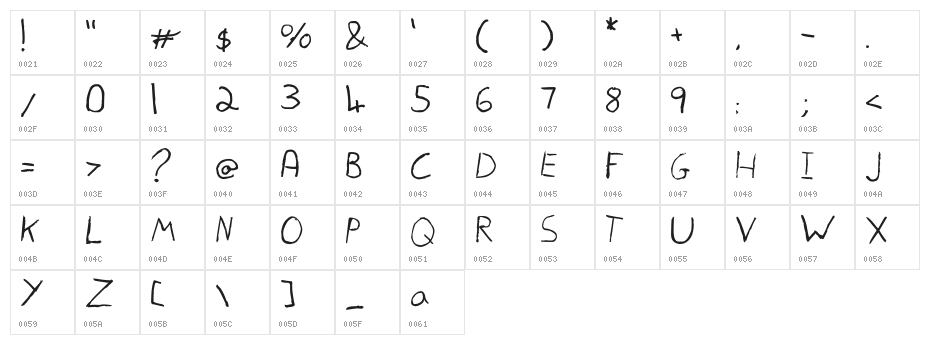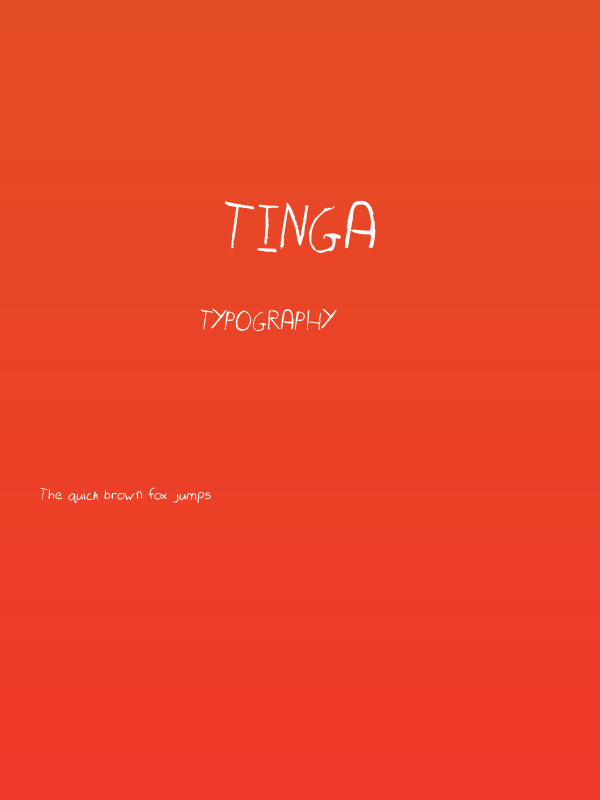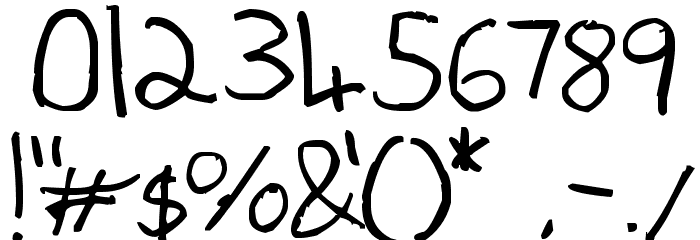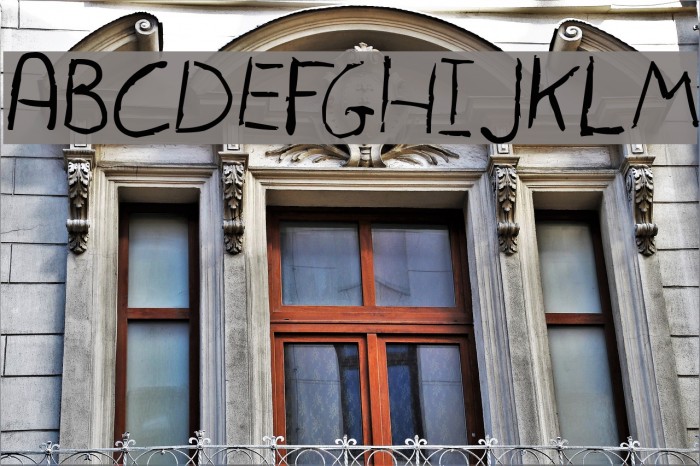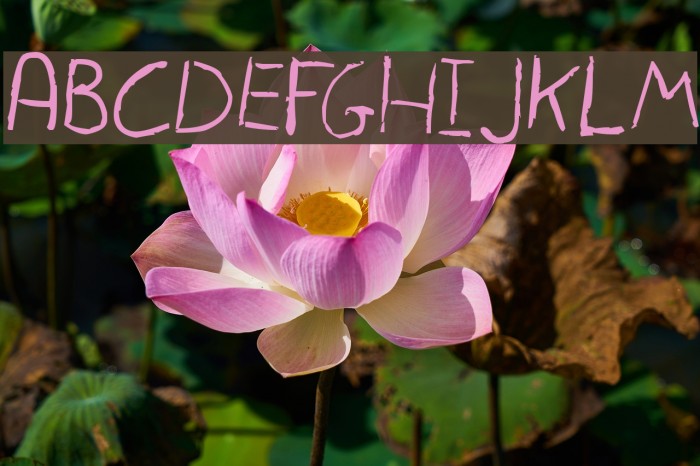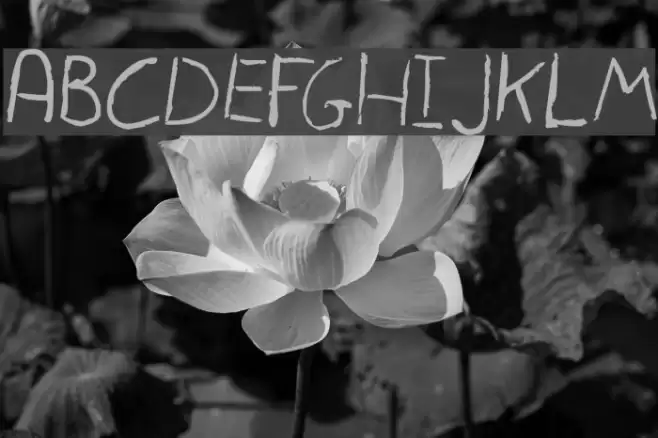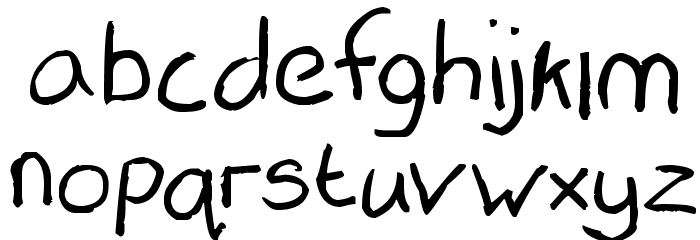
Tinga Font
Tinga Description
This font exudes a playful and casual handwritten style, characterized by its uneven strokes and slightly irregular letterforms. The uppercase letters are tall and narrow, while the lowercase letters maintain a consistent flow with rounded edges. Numbers are bold and distinct, matching the overall informal aesthetic. Special characters are creatively integrated, adding to the font's whimsical nature. The font's organic appearance makes it ideal for projects that require a personal touch or a relaxed vibe.
| Overall Style | Casual |
| Use Case | Logos, Headlines, Informal Text |
| Proposed Projects | Ideal for greeting cards, children's books, casual branding, and social media graphics. |